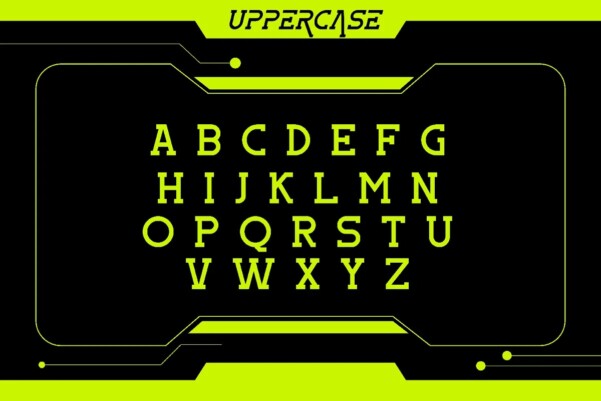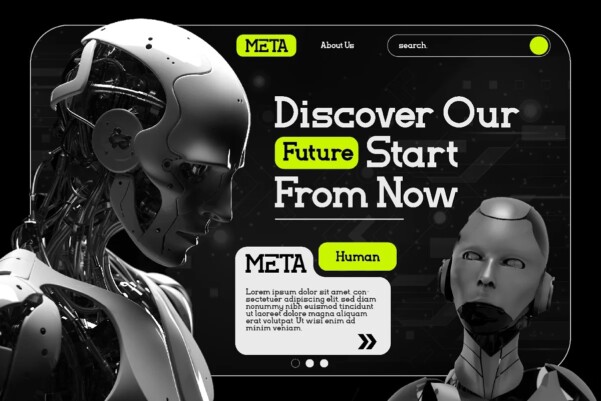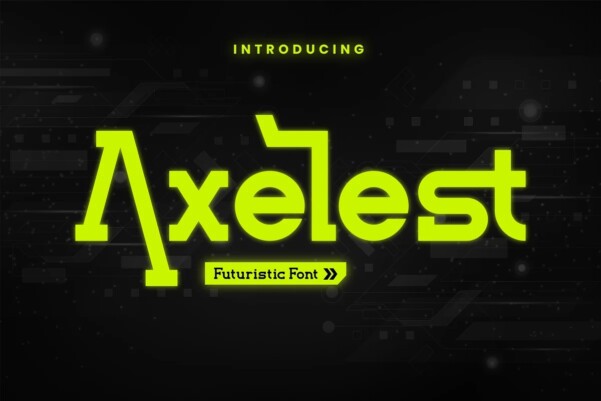
Axelest Font
Axelest Font – Futuristic Serif Font, from Rishsketch Studios, is a premium Serif Font, perfect for any project that requires a distinctive, and premium feel.